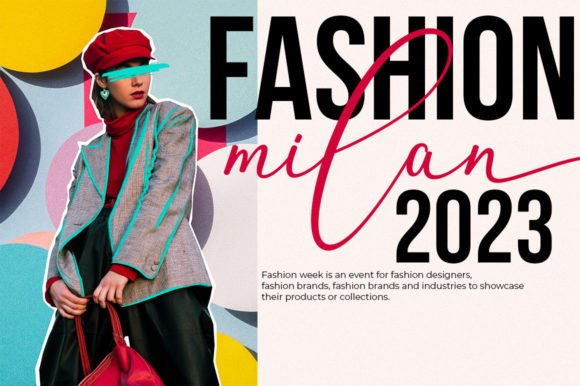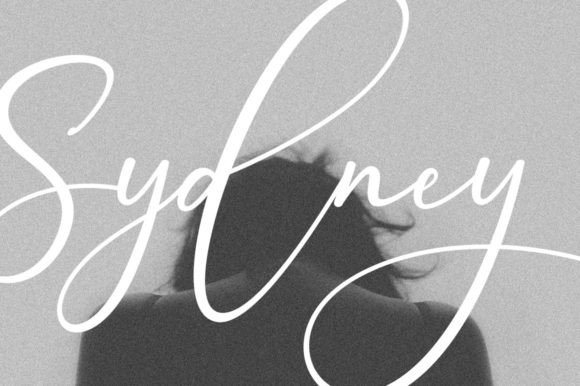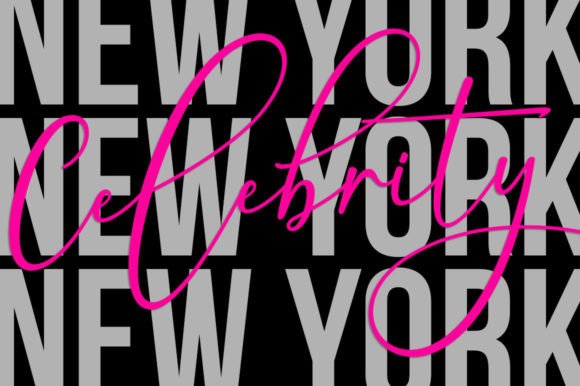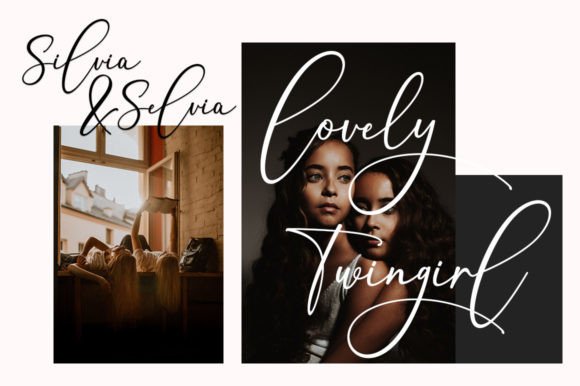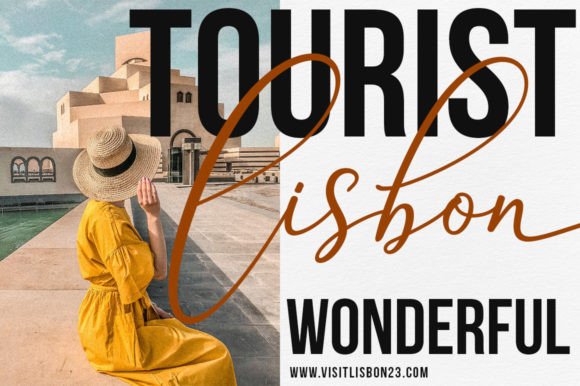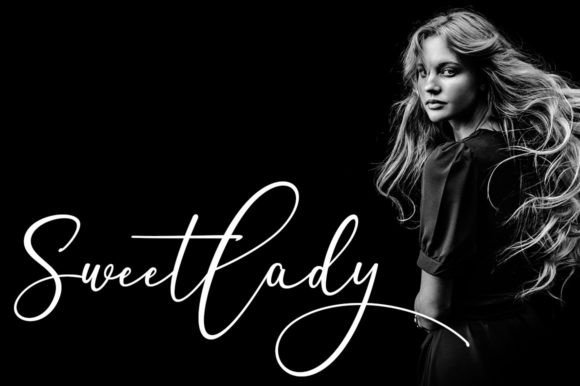
Introducing Anfield Font: The Perfect Handwritten Font for Your Creative Projects
Are you a designer or crafter looking for a unique and elegant font to elevate your creative projects? Look no further than Anfield Font, a beautiful natural handwritten font that’s perfect for a wide range of applications. In this article, we’ll explore the features and benefits of Anfield Font, and show you how it can help take your designs to the next level.
What is Anfield Font?
Anfield Font is a carefully crafted handwritten font that’s designed to bring a touch of elegance and sophistication to your designs. With its natural, flowing script, Anfield Font is perfect for creating beautiful logos, invitations, stationery, wedding designs, social media posts, advertisements, product packaging, and more.
Key Features of Anfield Font
- Natural Handwritten Style: Anfield Font features a beautiful, natural handwritten style that’s perfect for creating unique and eye-catching designs.
- Versatile: Anfield Font is incredibly versatile, and can be used for a wide range of applications, from logos and branding to invitations and social media posts.
- Elegant and Sophisticated: With its flowing script and elegant lines, Anfield Font is perfect for creating designs that are both sophisticated and stylish.
- Easy to Read: Despite its elegant style, Anfield Font is incredibly easy to read, making it perfect for use in body text and other applications where legibility is key.
Uses for Anfield Font
So, what can you use Anfield Font for? The possibilities are endless! Here are just a few ideas to get you started:
- Logos and Branding: Create a unique and memorable logo for your business or brand with Anfield Font.
- Invitations and Stationery: Use Anfield Font to create beautiful invitations, stationery, and other paper goods that are sure to impress.
- Wedding Designs: Anfield Font is perfect for creating beautiful wedding designs, from invitations to wedding programs and more.
- Social Media Posts: Add a touch of elegance to your social media posts with Anfield Font.
- Advertisements: Use Anfield Font to create eye-catching advertisements that stand out from the crowd.
- Product Packaging: Add a touch of sophistication to your product packaging with Anfield Font.
- Product Designs: Use Anfield Font to create beautiful product designs that are both functional and stylish.
- Labels and Photography: Anfield Font is perfect for creating labels and watermarks for your photography and other creative projects.
Why Choose Anfield Font?
So, why should you choose Anfield Font for your creative projects? Here are just a few reasons:
- Unique and Eye-Catching: Anfield Font is a unique and eye-catching font that’s sure to help your designs stand out from the crowd.
- High-Quality: Anfield Font is a high-quality font that’s designed to deliver exceptional results.
- Easy to Use: Anfield Font is incredibly easy to use, and can be easily integrated into your design workflow.
| Font Name | Anfield Font |
| Author | Natural Ink |
In conclusion, Anfield Font is a beautiful natural handwritten font that’s perfect for a wide range of creative projects. With its elegant style, versatility, and ease of use, Anfield Font is an excellent choice for designers and crafters looking to elevate their designs. Whether you’re creating logos, invitations, social media posts, or product packaging, Anfield Font is sure to help you achieve your design goals.